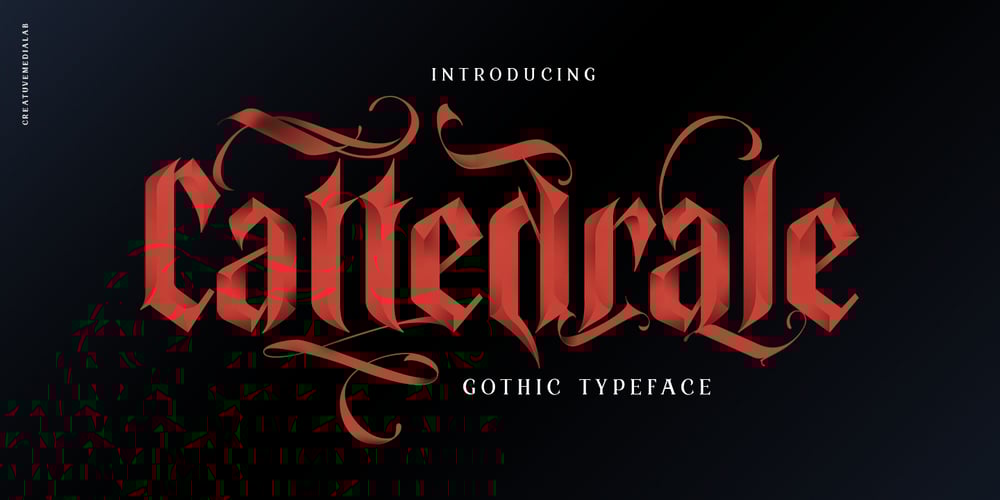
Cattedrale Font Family was designed by Kadek Mahardika and published by Creativemedialab. Cattedrale contains 3 styles and family package options. Introducing Cattedrale, a gothic style Blackletter font with a strong and elegant look includes a full set of capital and lowercase letters, multi-lingual support, currency figures, numerals and punctuation. Arrange the nice and unique ornaments with Cattedrale Ornament, or add into your display letters to make it look more sweet and stunning. Cattedrale is perfect for tattoos, clothing, labels, packaging, branding, headings, or any Gothic themed projects!